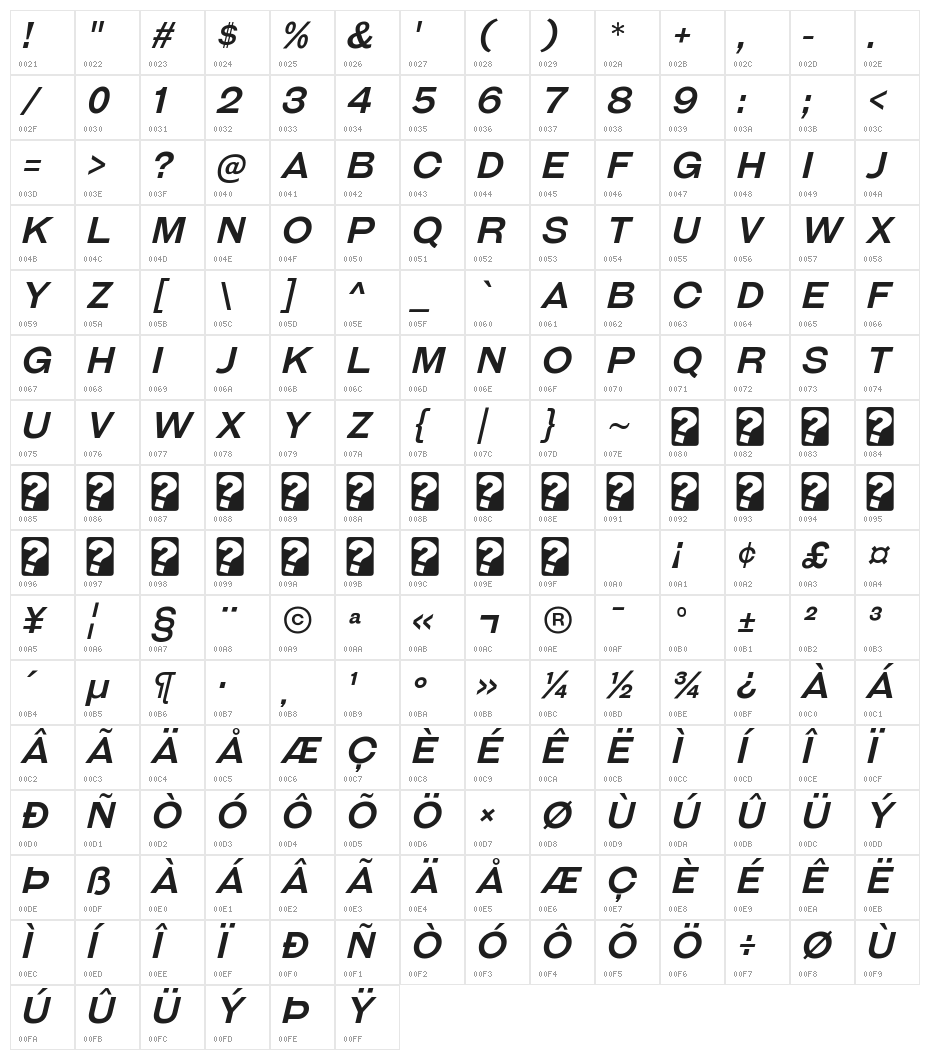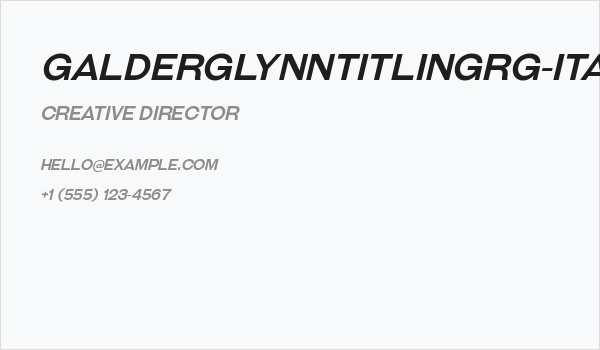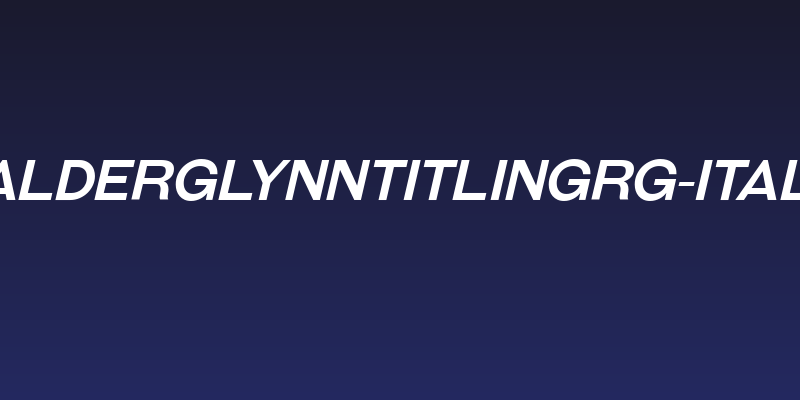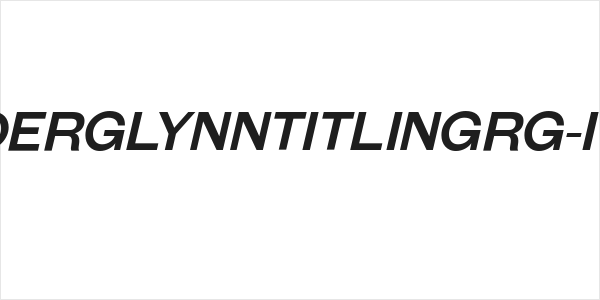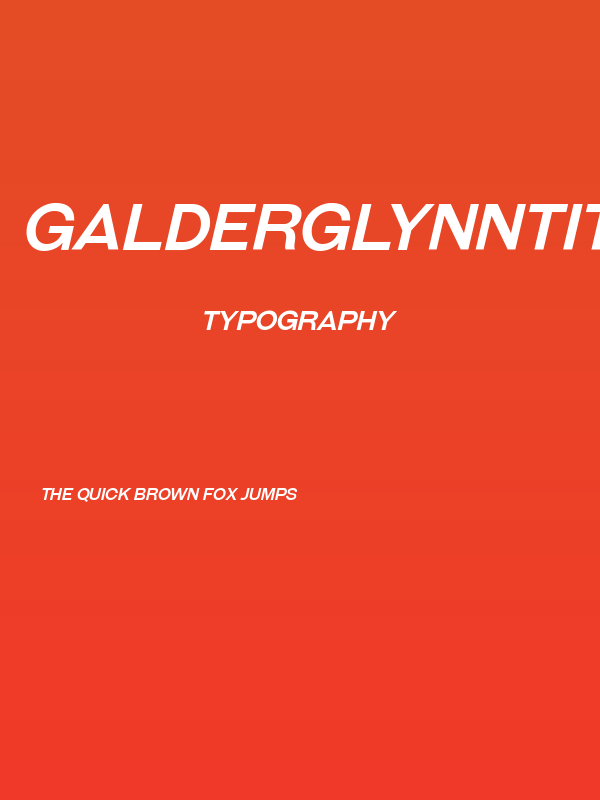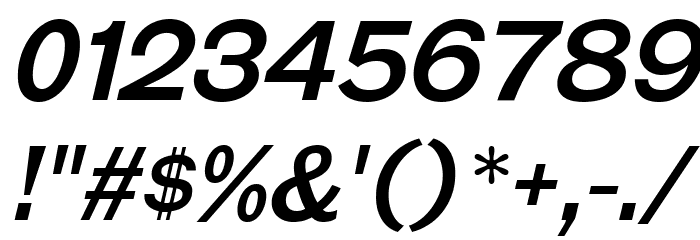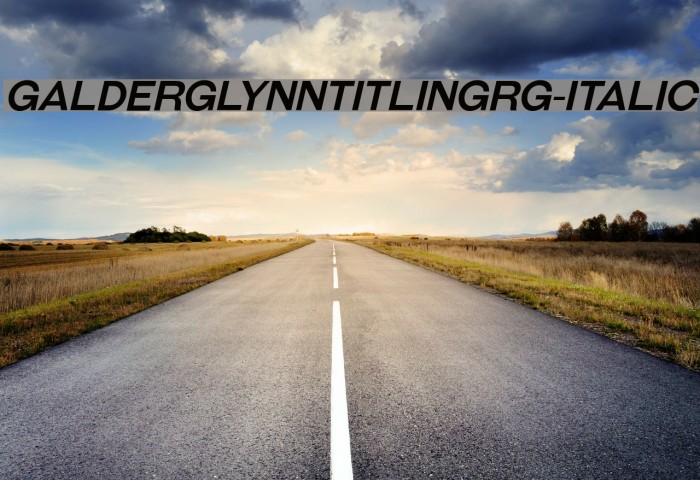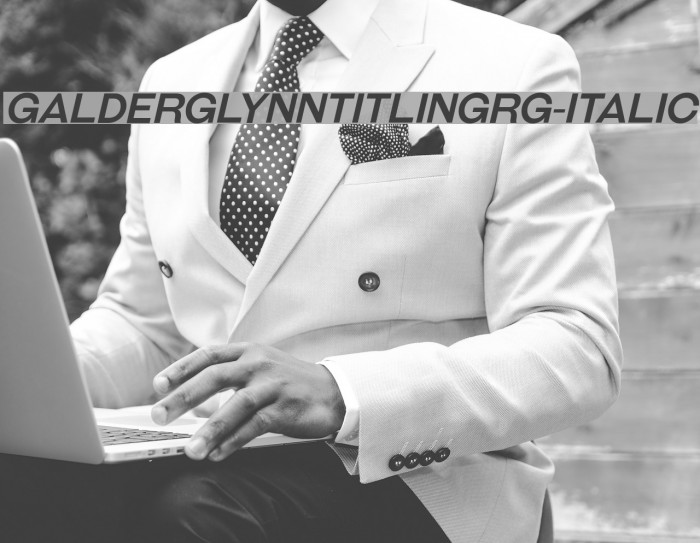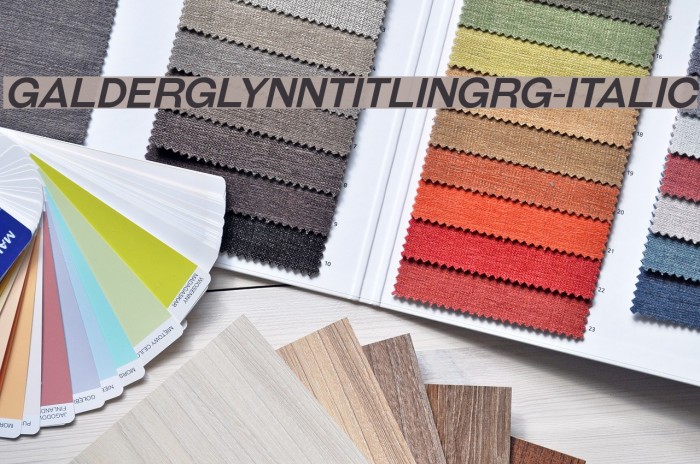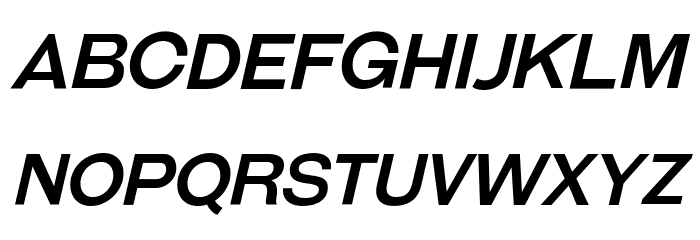
GalderglynnTitlingRg-Italic Font
GalderglynnTitlingRg-Italic Description
This font exhibits a sleek, italicized style with a modern and dynamic appearance. The characters are slightly slanted, giving a sense of motion and elegance. The uppercase letters are bold and prominent, while the lowercase letters maintain a consistent flow. The numerals are clear and well-defined, complementing the overall aesthetic. Special characters are designed with precision, ensuring readability and style. The font's clean lines and smooth curves make it suitable for various design applications.
| Use Case | Headlines, Logos, Advertising |
| Proposed Projects | Ideal for branding, advertising, and editorial design projects where a modern and stylish look is desired. |